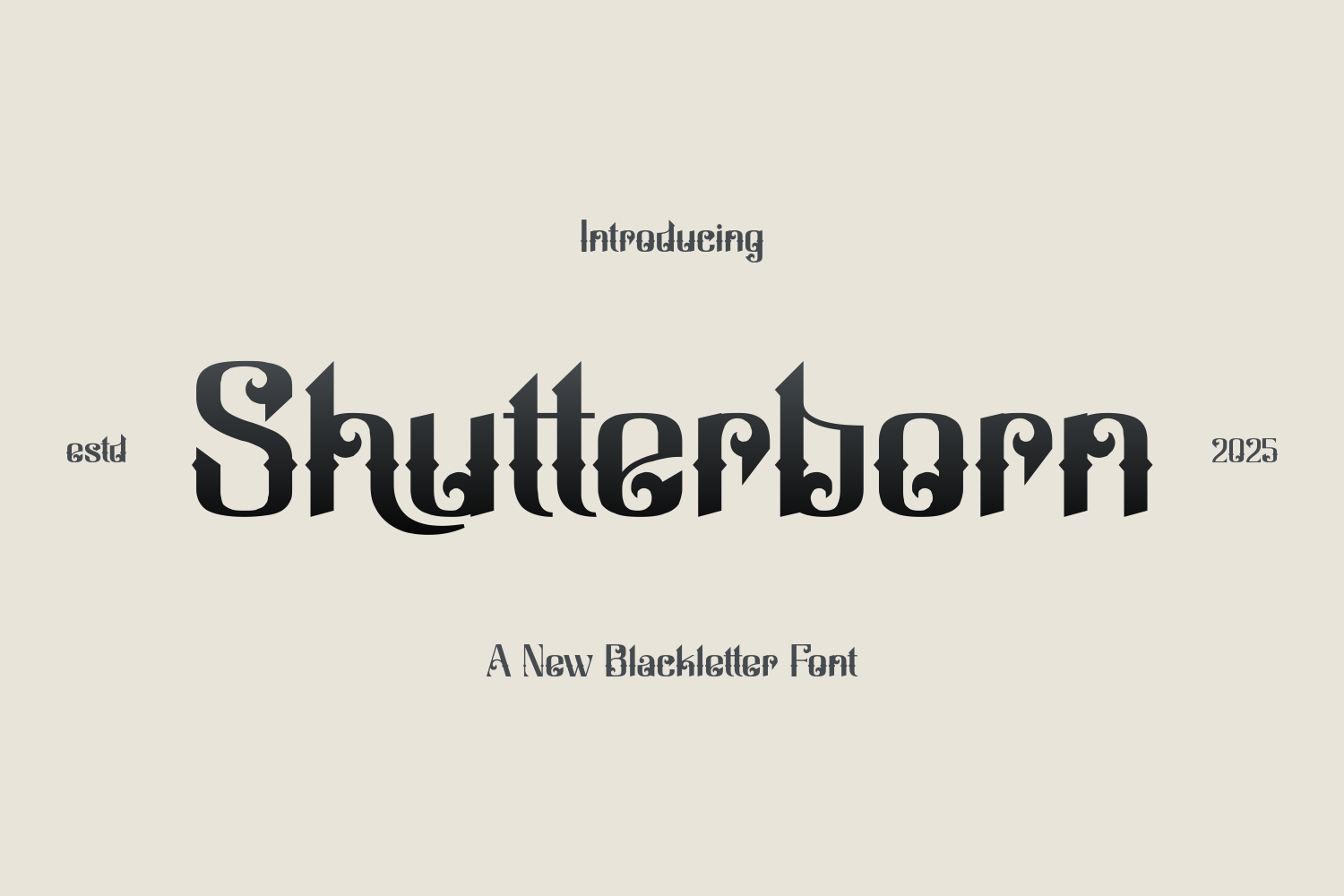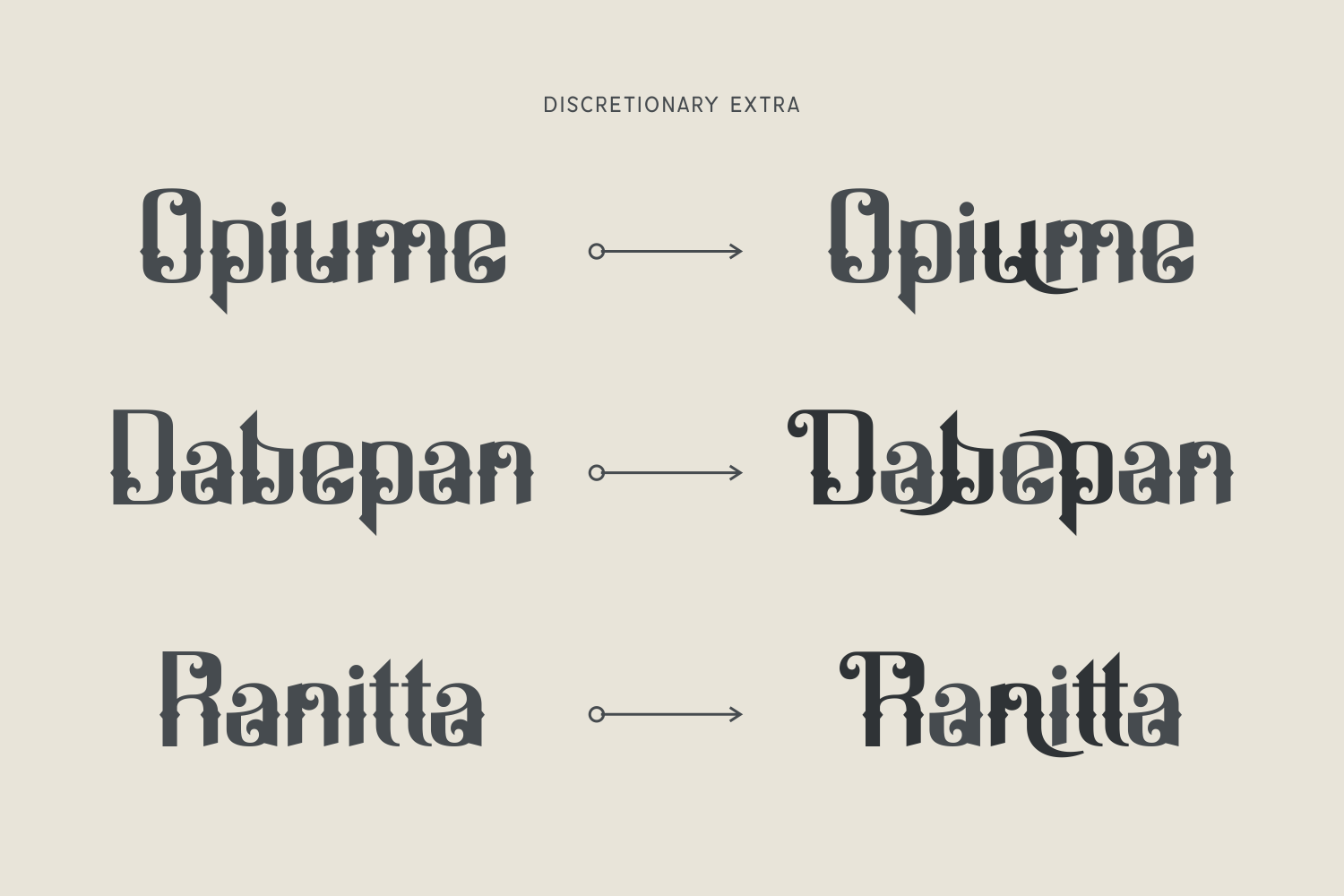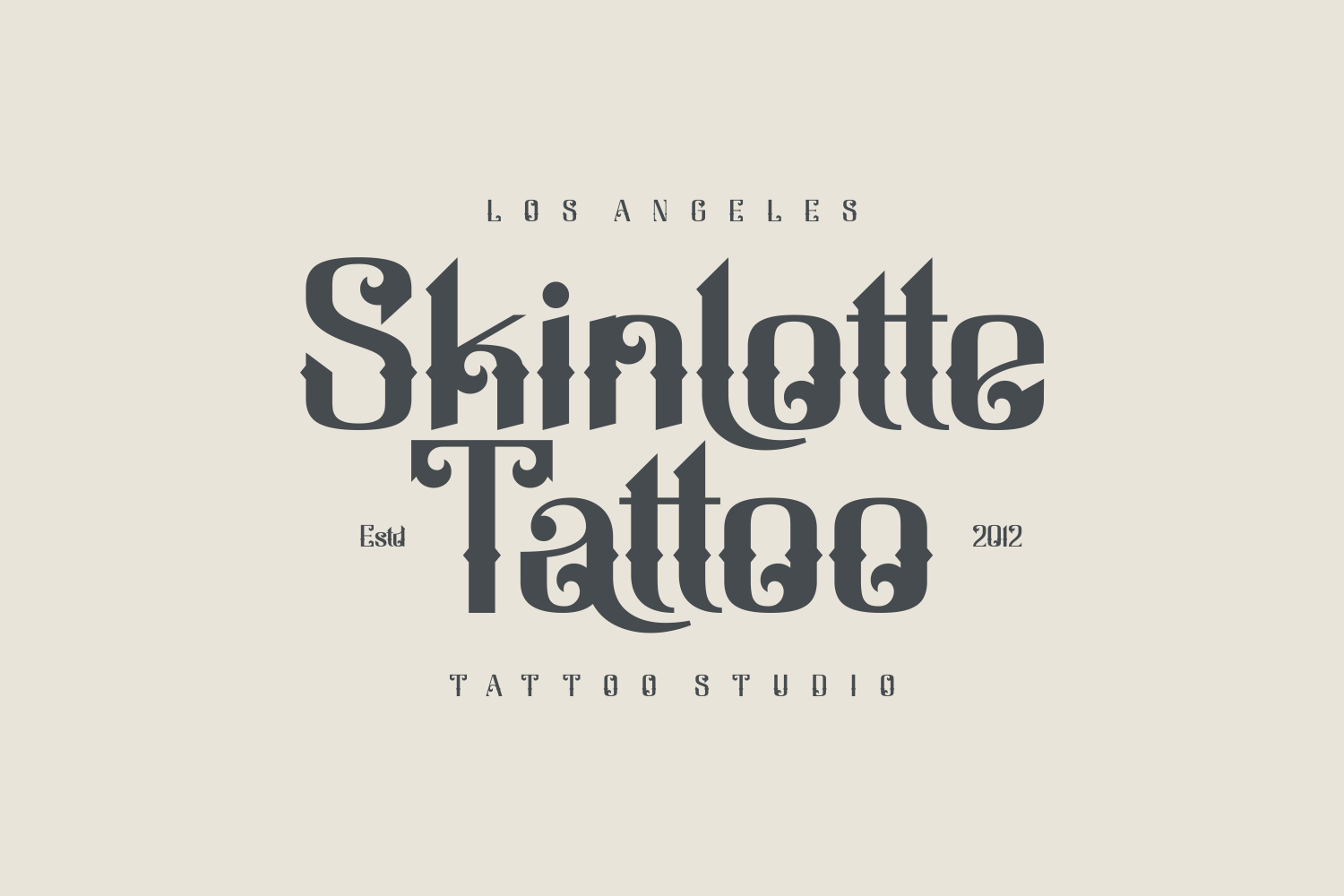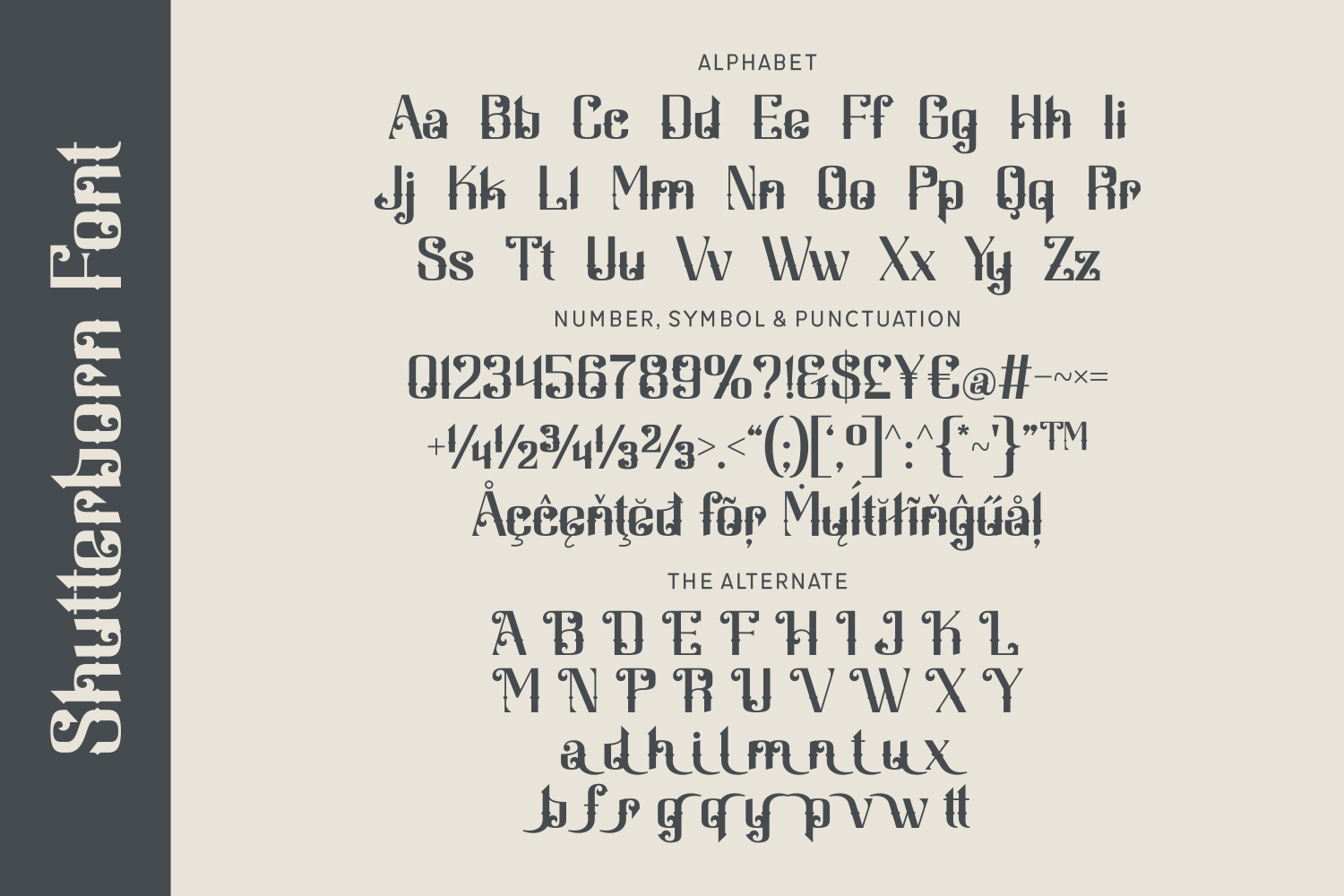
Shutterborn is a stylish and unexpected take on blackletter, featuring elegant strokes and organic rhythm. With flowing curves and unique letterforms, it blends classic Gothic style with a modern minimalist sensibility—great for branding, art covers, and editorial design.